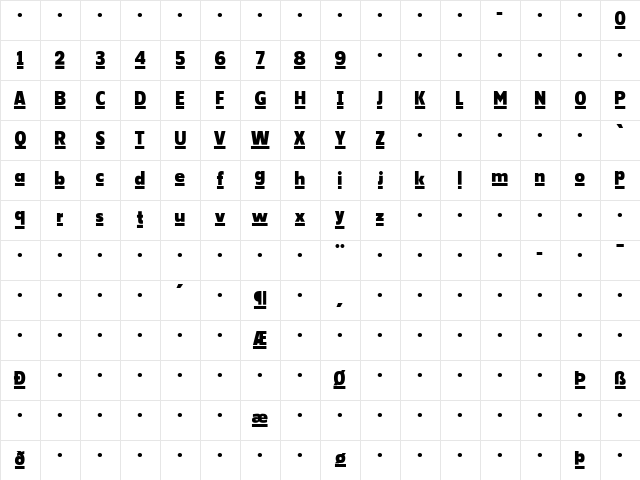
GovanOne-AlternateLined Regular
Design Context for GovanOne-AlternateLined Typeface
GovanOne-AlternateLined is a composed and adaptable typeface that performs quietly and consistently across a wide range of design contexts.